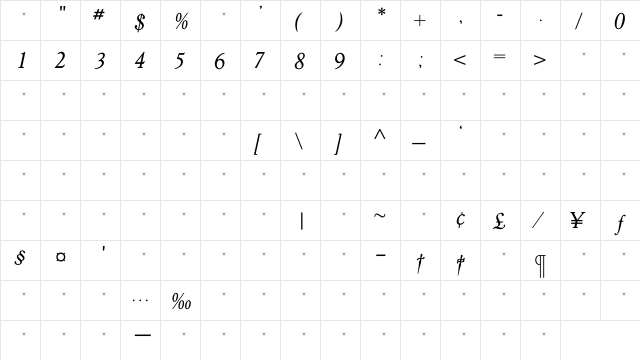
GoudY38BookItalicTab Regular
Design Context for GoudY38BookItalicTab Typeface
GoudY38BookItalicTab is a composed and adaptable typeface that performs quietly and consistently across a wide range of design contexts. The dynamic lean of this cut emphasises speed and emphasis in any layout.
Pro Tip: Try GoudY38BookItalicTab for annotation and caption copy alongside an upright companion — the contrast in angle creates a dynamic but ordered typographic system.